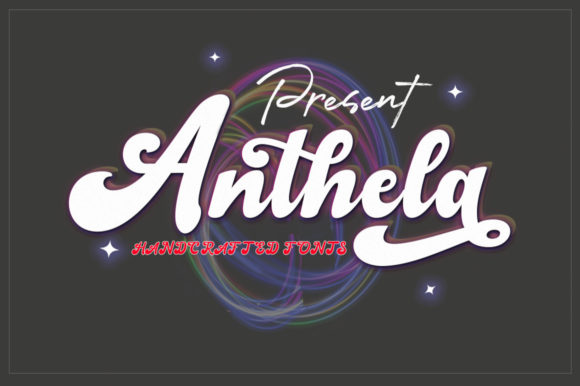
Behold, Anthela Font, a modern script font family that's like a stunning symphony of ink, flowing with grace and bursting with personality! Meet your newest font-tastic obsession, the Anthela Font, crafted by the brilliant minds at Gloow Studio. This masterpiece is a script font family that will redefine your creative horizons.
With Anthela Font, prepare to unleash a world of design possibilities, transforming your headlines, logotype projects, and branding ventures into works of art. Its bold strokes and rhythmic flow will captivate your audience, leaving them spellbound by your typographic prowess.
The Anthela Font, PUA-encoded for your convenience, grants you effortless access to a treasure trove of glyphs and swashes, empowering you to explore a kaleidoscope of design combinations. Unleash your imagination and witness the birth of truly unique and captivating creations.
As you glide through the Anthela Font character set, you'll discover a symphony of carefully crafted letters, numbers, and symbols, each one a testament to the font's intricate artistry. The bold numbers, in particular, command attention, demanding to be seen and admired. They possess an inherent strength, perfectly suited to make a statement.
The Anthela Font is your passport to a realm of design excellence, where your projects will shine with newfound brilliance. Its dynamic personality will breathe life into your creative endeavors, leaving an indelible mark on the hearts of your audience.